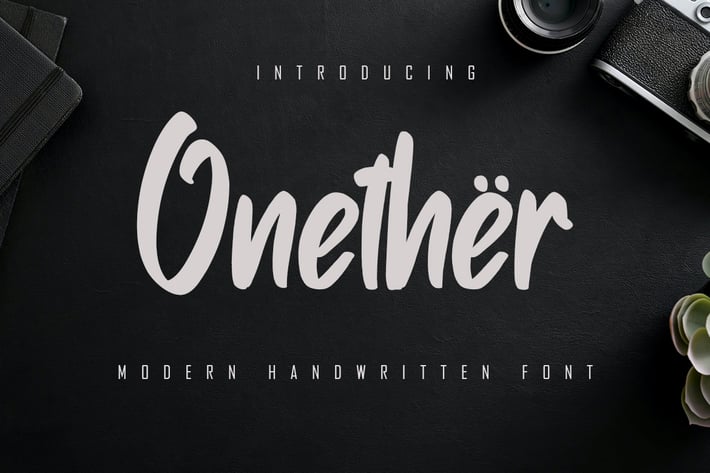
Onether - Modern Handwritten Font
Onether is a modern, cool, beautiful, and very suitable Handwritten font to support your presentation and support in marketing your products and business
+ Basic Latin Language Support (AÀÁÂÃÄÅCÇDÐEÈÉÊËIÌÍÎÏÑOØÒÓÔÕÖUÙÜÚÛWYÝŸÆß )